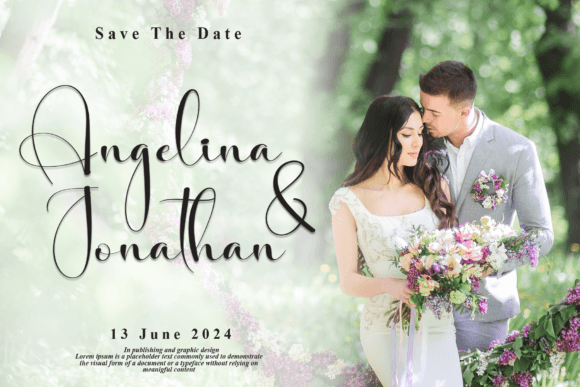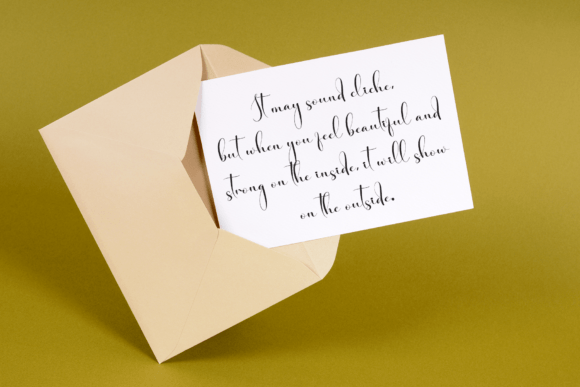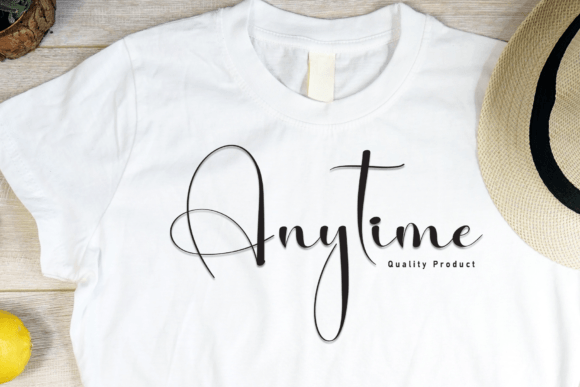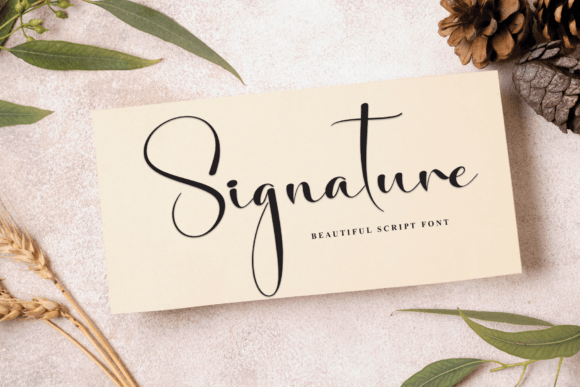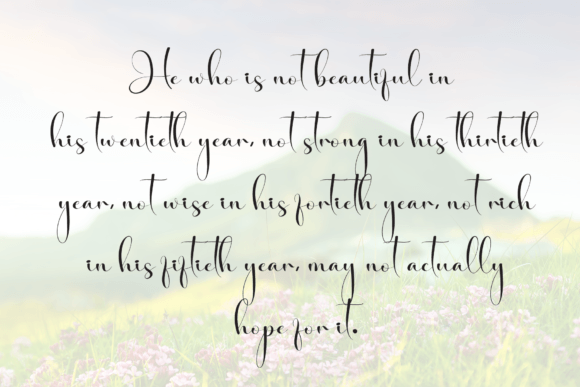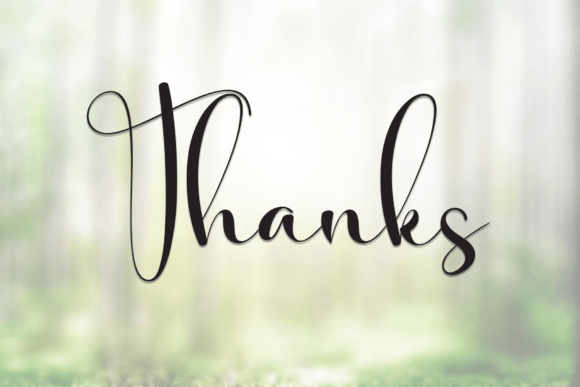
Introducing Beauty Nature Font: The Sweet and Friendly Handwritten Font for Your Design Needs
Are you a designer or crafter looking for a font that can add a touch of warmth and personality to your projects? Look no further than Beauty Nature Font, a sweet and friendly handwritten font that’s perfect for a wide range of designs. With its natural and unique style, Beauty Nature Font is incredibly versatile and can be used for everything from branding and packaging to invitations and DIY crafts.
The Characteristics of Beauty Nature Font
Beauty Nature Font is a handwritten font that’s designed to evoke a sense of warmth and friendliness. Its natural and unique style makes it stand out from more traditional fonts, and its sweet and approachable tone is sure to capture the hearts of your audience. Whether you’re creating a logo, a brochure, or a social media graphic, Beauty Nature Font is the perfect choice for adding a personal touch to your design.
The Benefits of Using Beauty Nature Font
So why choose Beauty Nature Font for your design needs? Here are just a few benefits of using this beautiful font:
- Versatility: Beauty Nature Font is incredibly versatile and can be used for a wide range of designs, from formal to informal, and from digital to print.
- Uniqueness: With its natural and unique style, Beauty Nature Font is sure to make your designs stand out from the crowd.
- Emotional Connection: The sweet and friendly tone of Beauty Nature Font is sure to create an emotional connection with your audience, making your designs more relatable and engaging.
How to Use Beauty Nature Font in Your Designs
Using Beauty Nature Font in your designs is easy. Here are a few tips to get you started:
- Pair it with other fonts: Beauty Nature Font pairs well with other fonts, so feel free to experiment with different combinations to create a unique look.
- Use it for headings and titles: Beauty Nature Font is perfect for headings and titles, where its bold and playful style can really shine.
- Add it to your branding: Use Beauty Nature Font as part of your branding to add a personal touch and create a consistent look across all your marketing materials.
- Experiment with colors: Beauty Nature Font looks great in a variety of colors, so don’t be afraid to experiment and find the perfect hue for your design.
Design Ideas Using Beauty Nature Font
Beauty Nature Font is incredibly versatile, and can be used for a wide range of design projects. Here are a few ideas to get you started:
- Wedding invitations: Use Beauty Nature Font to create beautiful and personalized wedding invitations that set the tone for a special day.
- Branding and packaging: Use Beauty Nature Font as part of your branding and packaging to add a touch of warmth and personality to your products.
- DIY crafts: Use Beauty Nature Font to add a personal touch to your DIY crafts, such as handmade cards, gift tags, and decorations.
- Social media graphics: Use Beauty Nature Font to create engaging and eye-catching social media graphics that stand out from the crowd.
In conclusion, Beauty Nature Font is a sweet and friendly handwritten font that’s perfect for designers and crafters looking to add a touch of warmth and personality to their projects. With its natural and unique style, versatility, and ease of use, Beauty Nature Font is an excellent choice for a wide range of designs. So why not give it a try and see how it can elevate your designs to the next level?